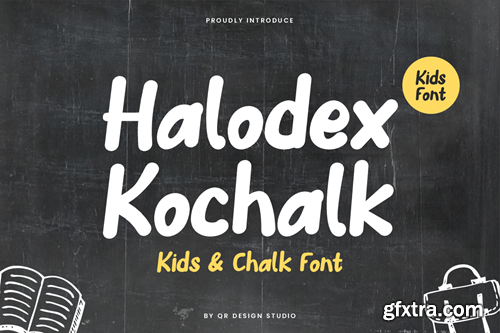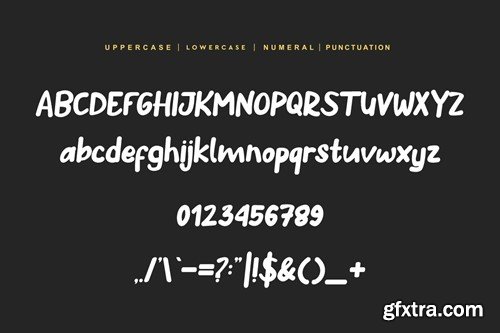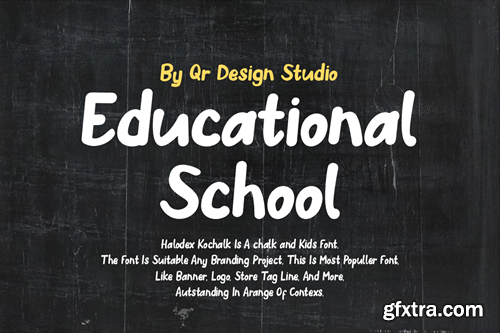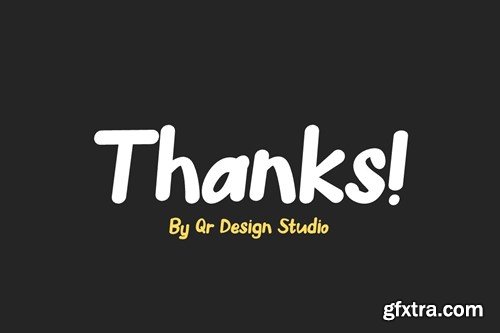
HALODEX Kochalk - 儿童及粉笔字体 H56Q65Z
Halodex Kochalk - Kids & Chalk Font H56Q65Z
Halodex Kochalk - Kids & Chalk Font
Halodex Kochalk - Kids & Chalk Font is a brush and hand drawn font. The font is suitable for any branding project like kids, school, chalk, poster, logo, sport, and many more. Outstanding in a wide range of contexts.